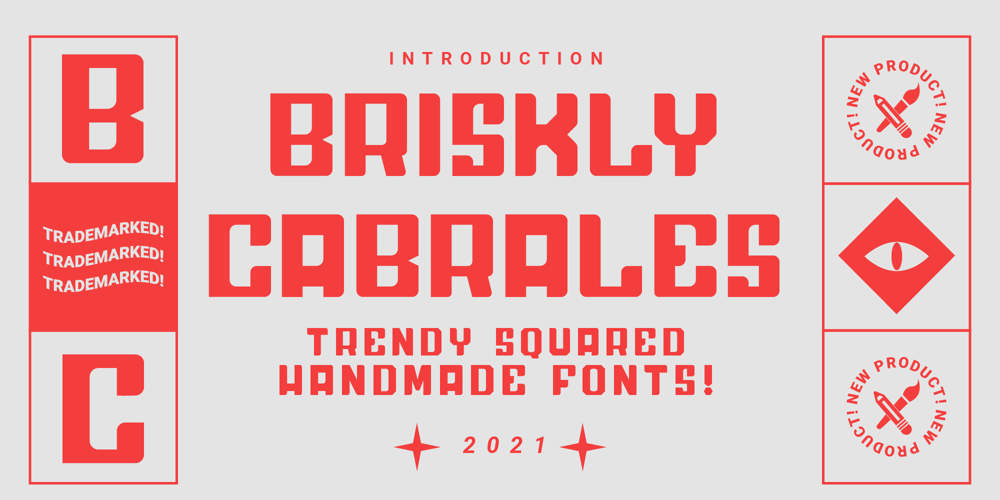
Briskly Cabrales
Briskly Cabrales font
Briskly Cabrales Font Family was designed by Stefie Justprince and published by Crumphand. Briskly Cabrales contains 1 styles and family package options. Hello, Introducing my new font “Briskly Cabrales” The Briskly Cabrales is block handmade font.Strong, elegant, modern, calm.What’s Inside The Fonts ? Uppercase Lowercase Symbols Numerals European Multilungual Thank you, Regards!